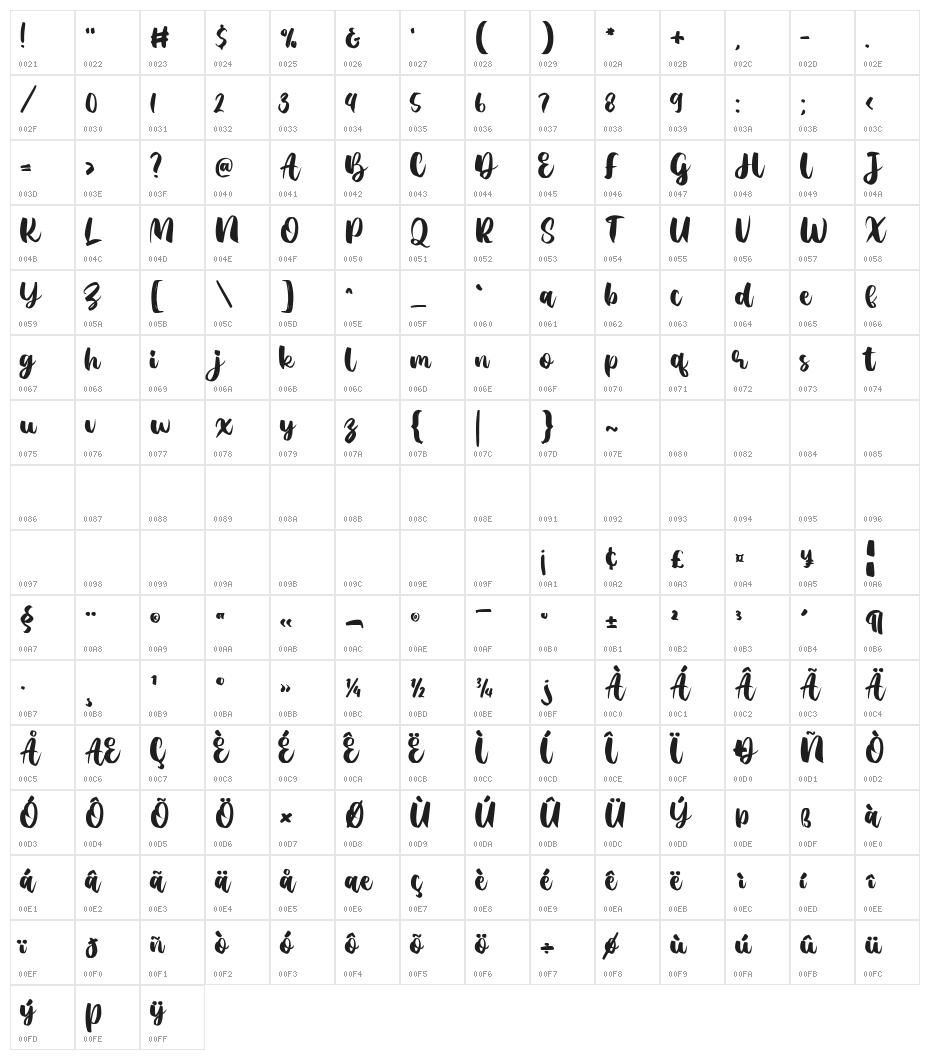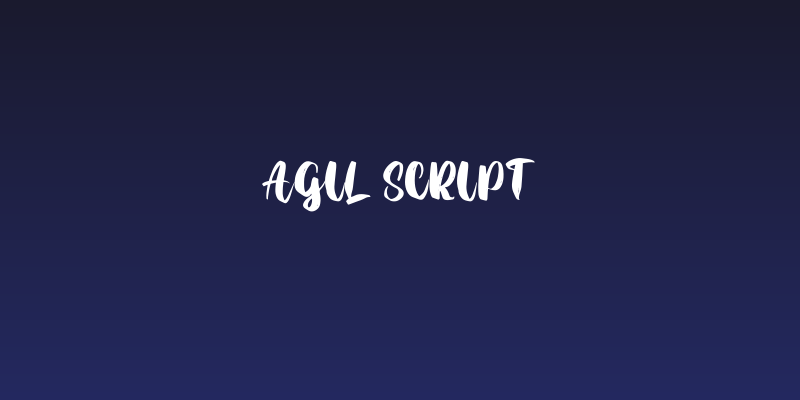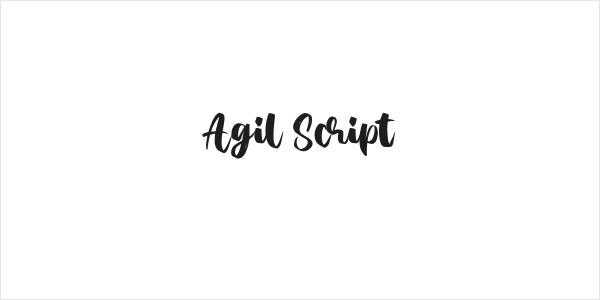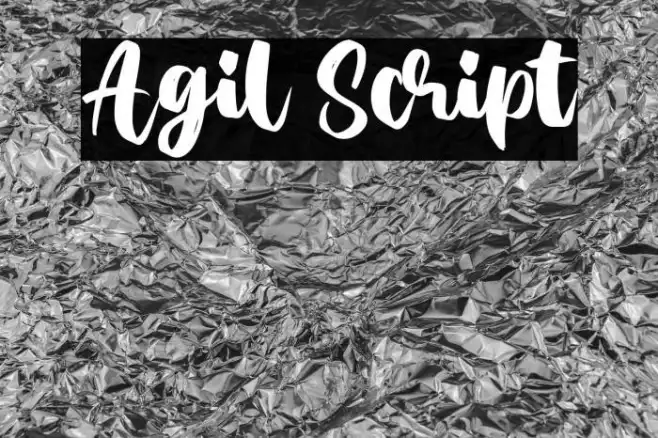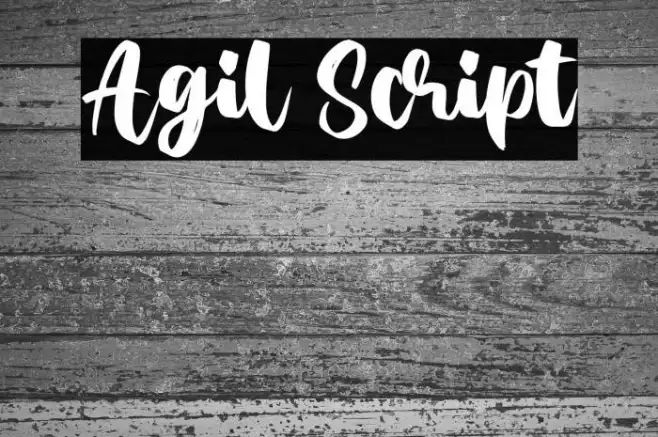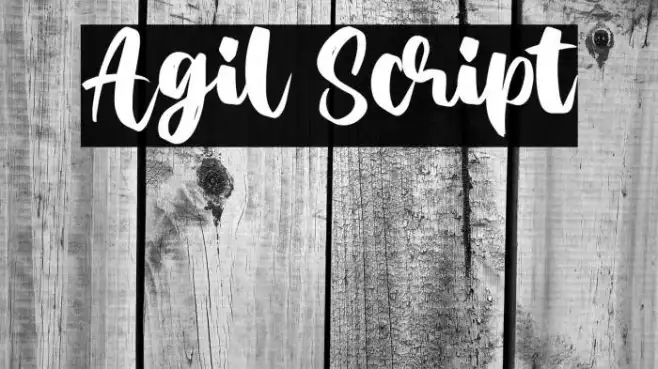
Agil Script Font
Agil Script Description
This font is a bold, expressive script with a hand-drawn feel, characterized by its thick, flowing strokes and playful curves. Each letter is crafted with a sense of movement, giving the text a lively and dynamic appearance. The uppercase letters are particularly striking, with their sweeping lines and dramatic flourishes, while the lowercase letters maintain a consistent style that complements the overall aesthetic. The numbers and special characters are equally bold, ensuring a cohesive look across all text elements. This font is perfect for projects that require a touch of elegance and personality, such as invitations, branding, and creative designs.